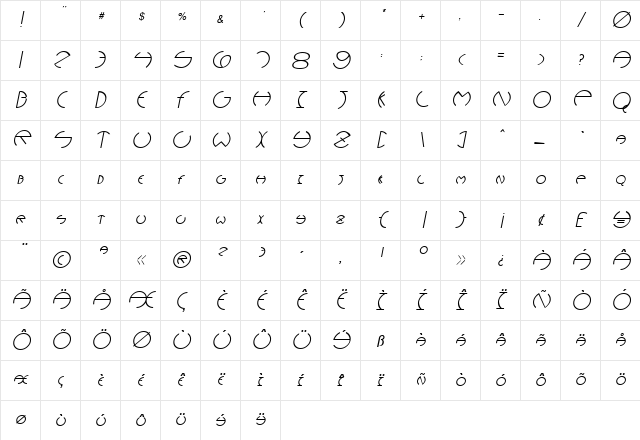
Adamon Oblique Free Font
Adamon Oblique
Design Context for Adamon
Adamon is a composed and adaptable typeface that performs quietly and consistently across a wide range of design contexts. The slanted form adds forward momentum and visual energy.
Pro Tip: Use Adamon for emphasis, pull quotes, and subheadings where its slanted energy can add rhythm to the layout.